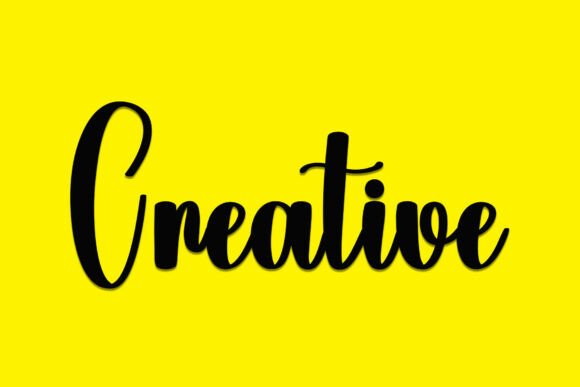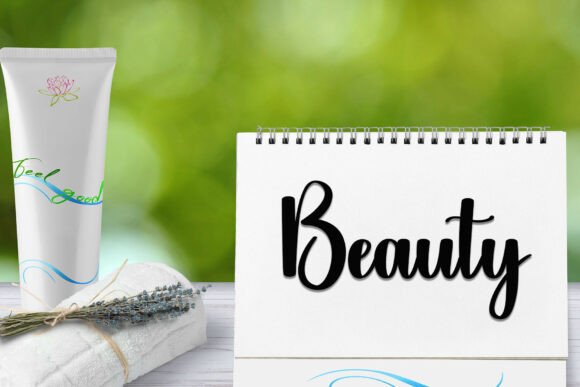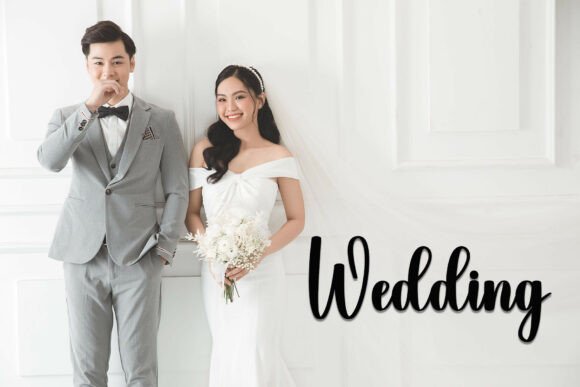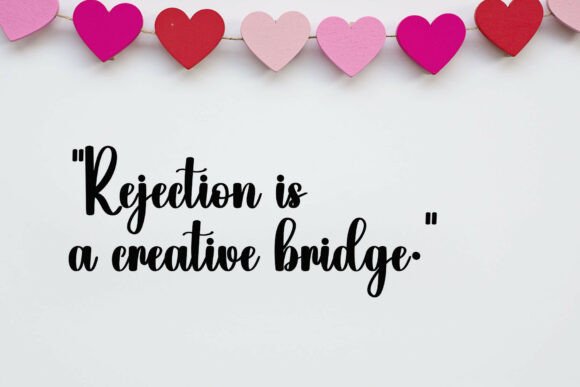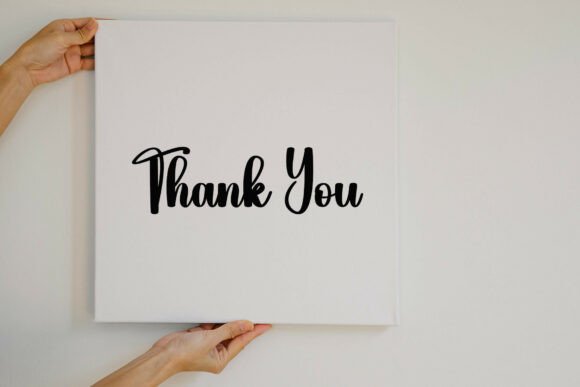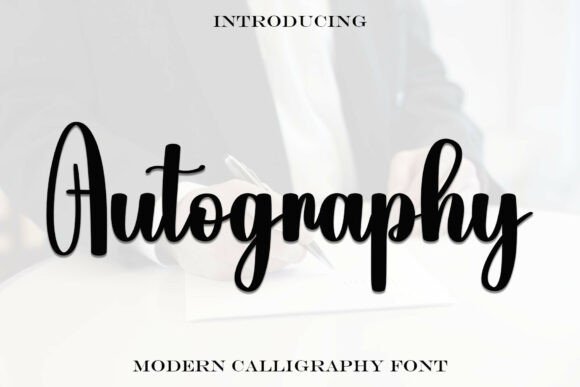
The Autography Font: A Delicate Handwritten Gem for Creative Projects
I’ll never forget the time I was working on a wedding invitation design project, and my client asked for a font that was both elegant and playful. I scoured the internet, tried out countless fonts, but nothing seemed quite right. That was until I stumbled upon the Autography font. ✨ It was love at first sight! The delicate handwritten strokes, the unique character, and the versatility of this font won me over. In this article, I’ll share my experience with Autography, its features, and how to make the most of it in your designs.
An Honest Review of Autography Font
- ✨ Delicate and elegant handwritten strokes
- ✅ Unique character that stands out from more traditional fonts
- 🎨 Highly versatile and can be used for a wide range of projects, from invitations to food product labels
While Autography is an amazing font, there are a few things to keep in mind: 🤔
- ⚠️ Limited availability of stylistic alternates, which may limit its use in certain design projects
- ⚠️ May not be suitable for very large or very small font sizes, as some details may get lost
The Story Behind Autography Font
Autography was designed by a talented typographer who wanted to create a font that was both elegant and unique. Inspired by traditional handwriting, Autography features delicate strokes and a distinctive character that sets it apart from more traditional fonts. With its versatility and range, Autography is perfect for designers, crafters, and creative hobbyists looking for a font that will add a personal touch to their projects.
Q: What is the best way to use Autography font?
A: Autography is best used for designs that require a personal touch, such as invitations, food labels, and titles.